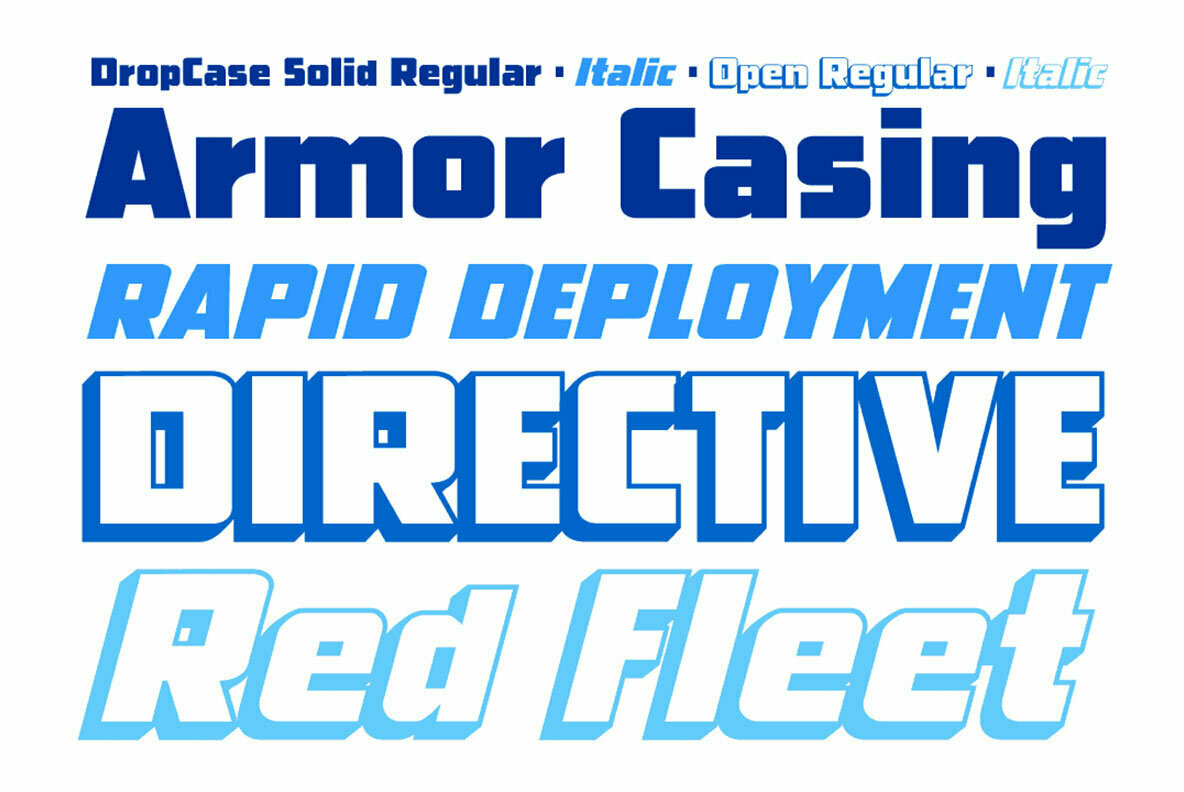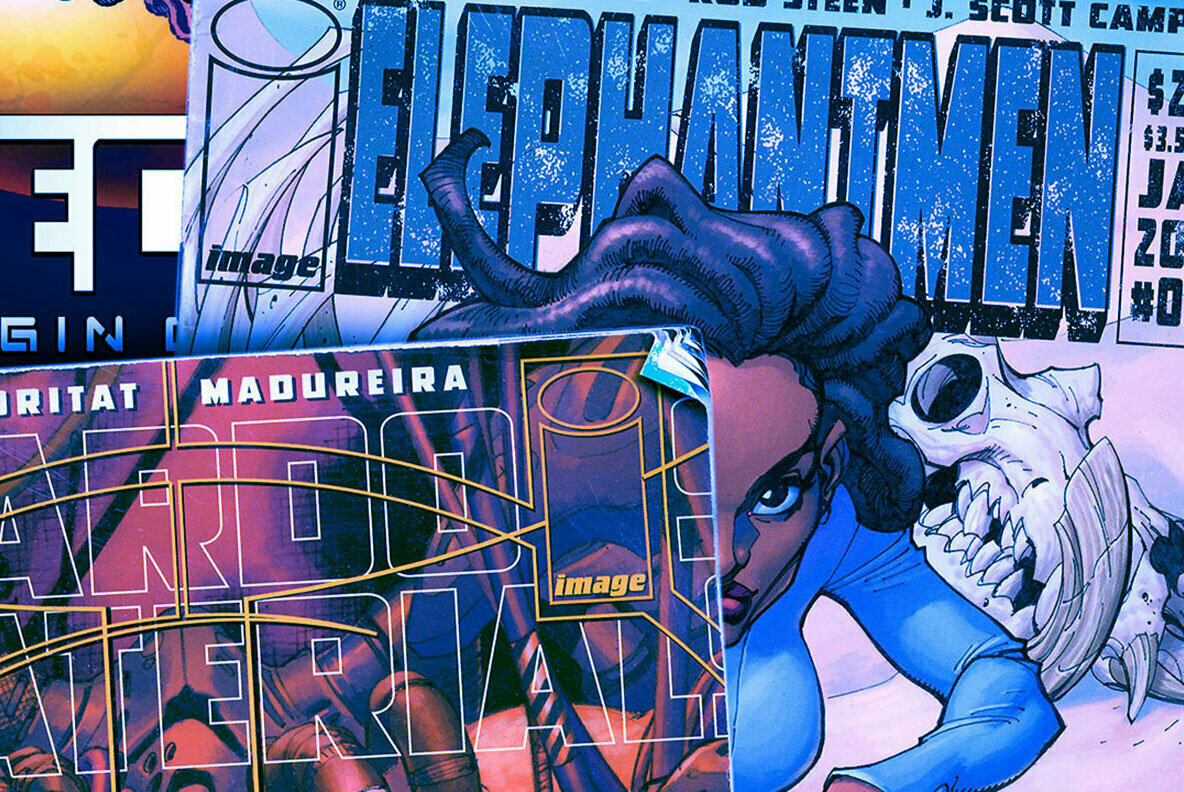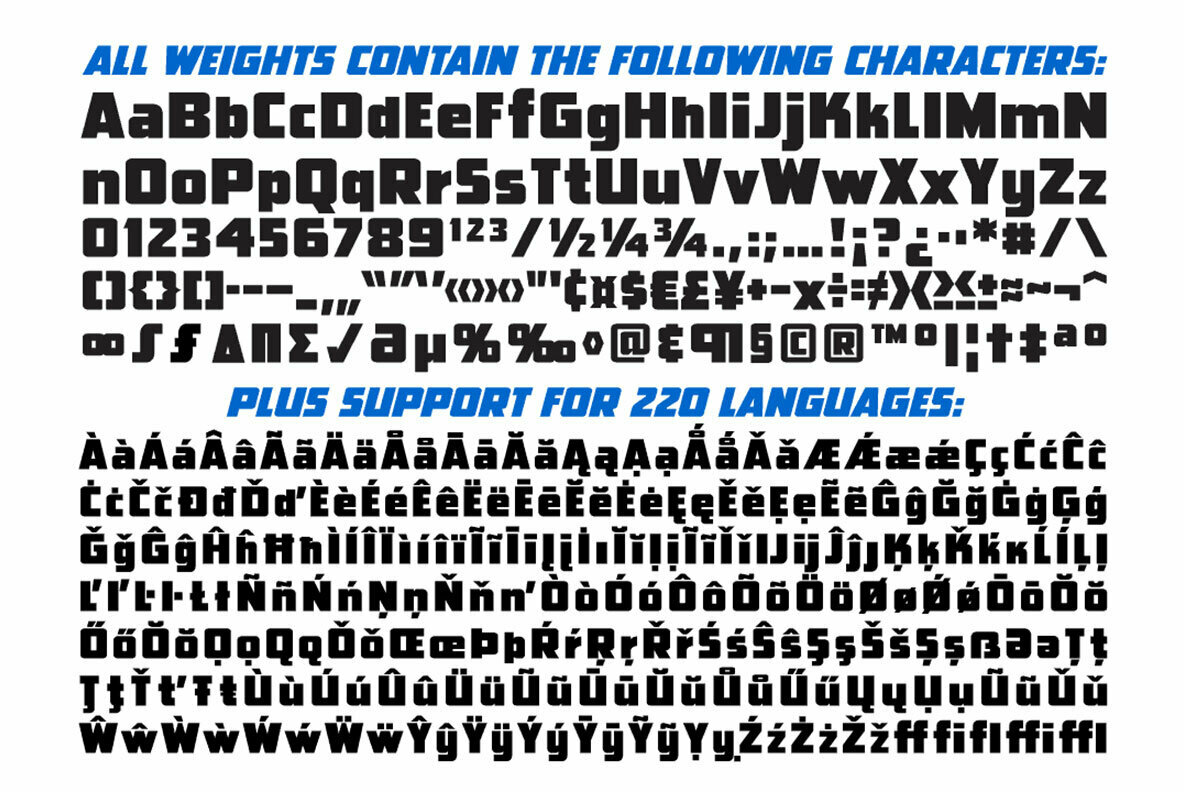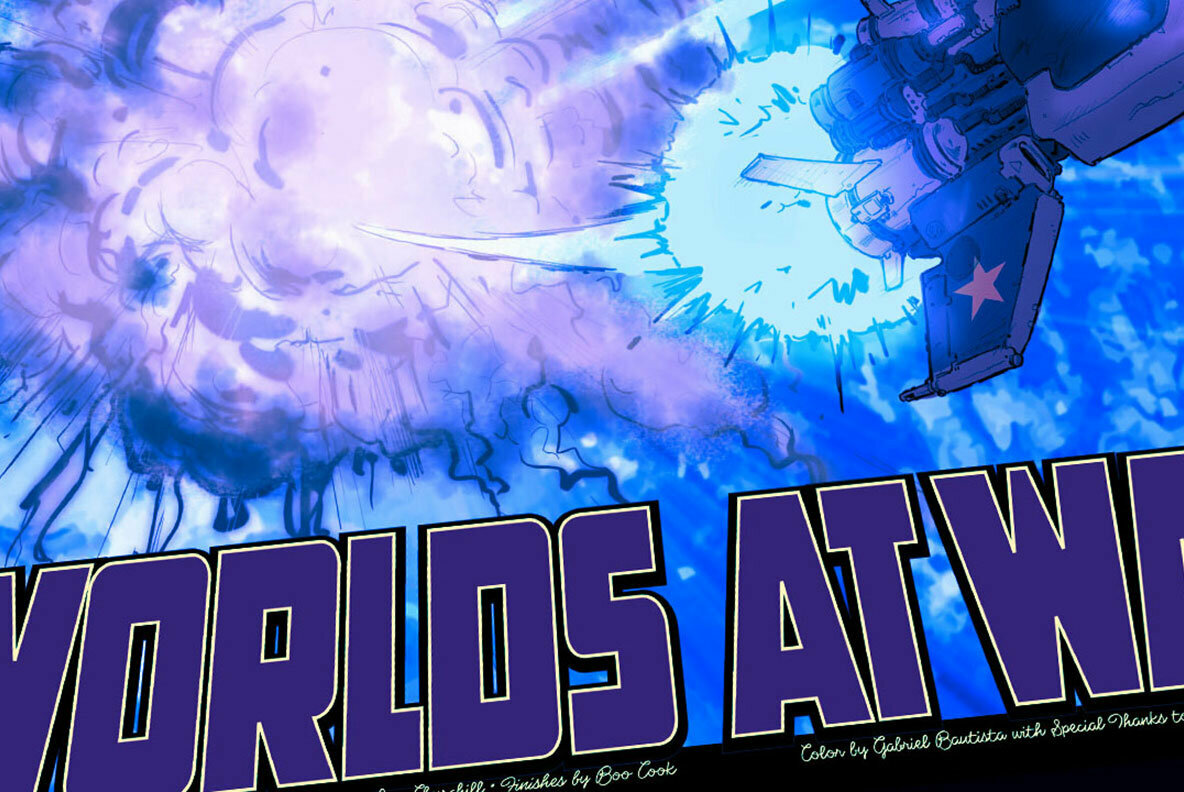
Drop Case Font
CC Drop Case Open
CC Drop Case Open Italic
CC Drop Case Solid
CC Drop Case Solid Italic
As seen in ELEPHANTMEN and THE RED STAR, his solid headline font is supplied to you with exterior protective armor casing. Rapid Deployment of DropCase from high altitudes is acceptable only in accordance with the directives of the Red Fleet. .
DropCase features four fonts (Solid, Solid Italic, Open and Open Italic) with support for 220 languages, including Western & Central Europe.